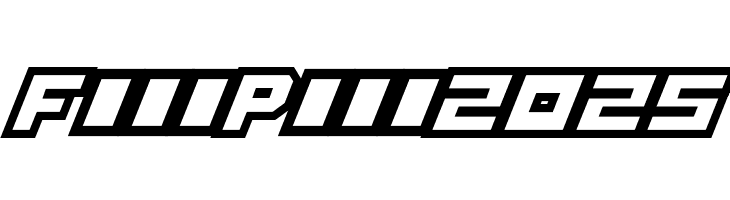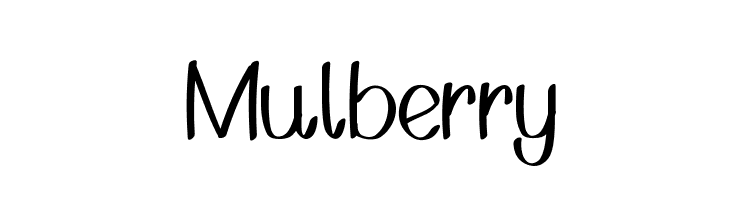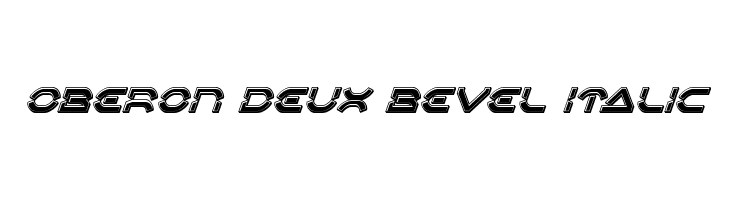
A bold, angular font with a futuristic and dynamic style.
A geometric and artistic font with sharp, angular letterforms.
A classic serif font with elegant, bold characters and modern touches.
A pixelated, retro font inspired by classic arcade games.
A bold, decorative font with a 3D effect and dotted pattern, ideal for retro or playful designs.
A rugged, distressed outline font with a bold, weathered appearance.
A playful, handwritten font with smooth, rounded edges and a casual feel.
A graffiti-inspired font with sharp, angular lines and dynamic curves.